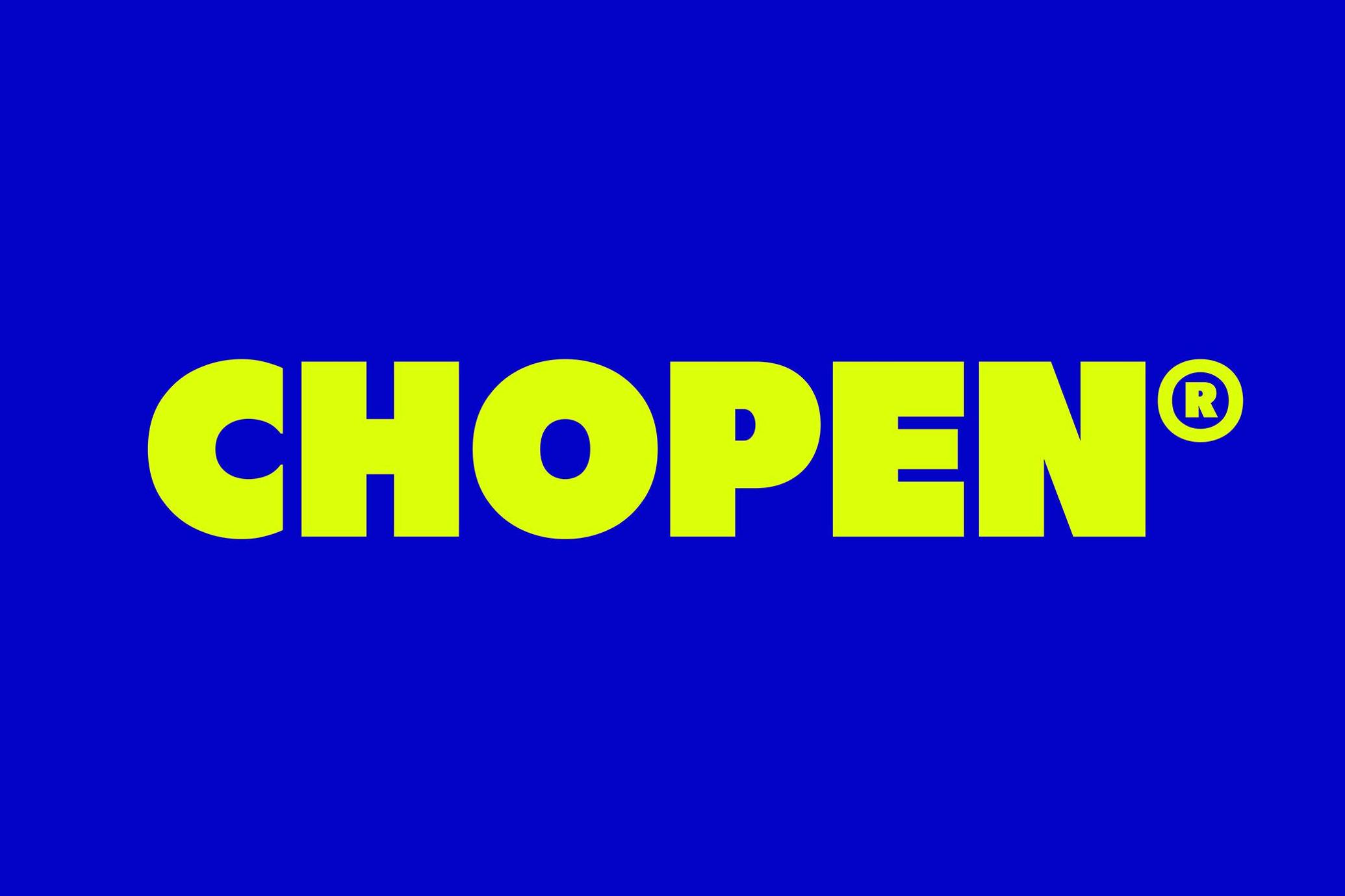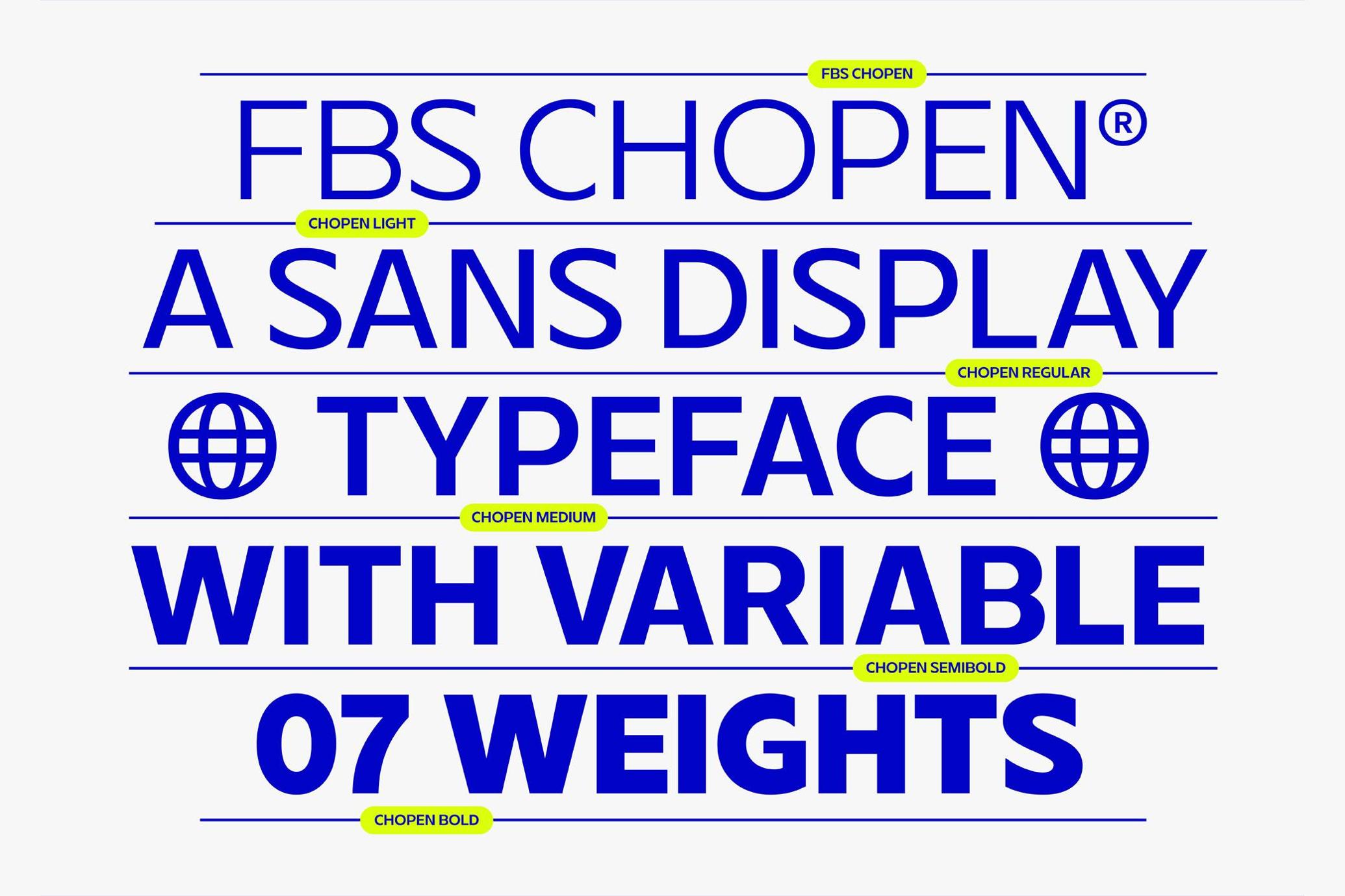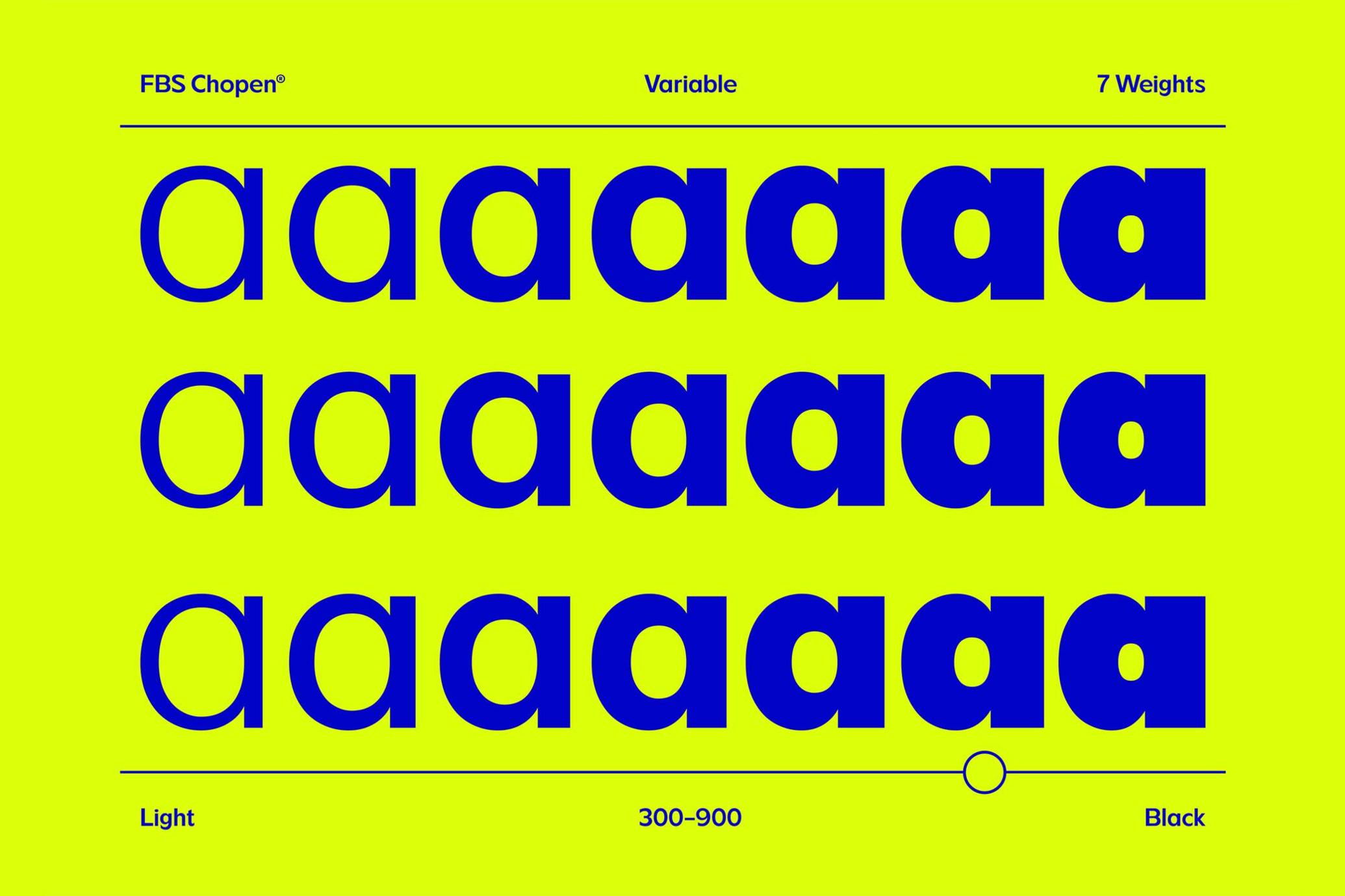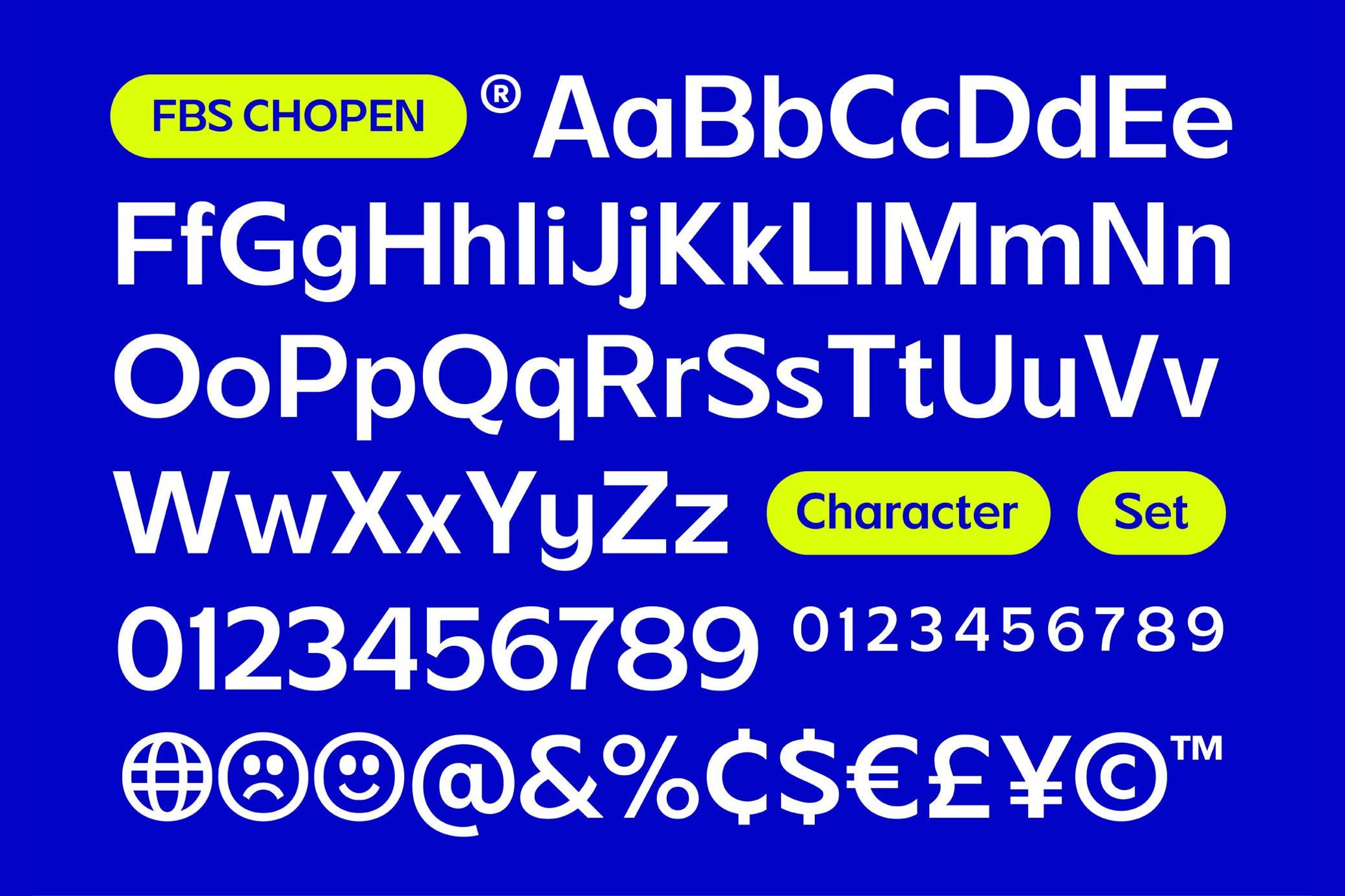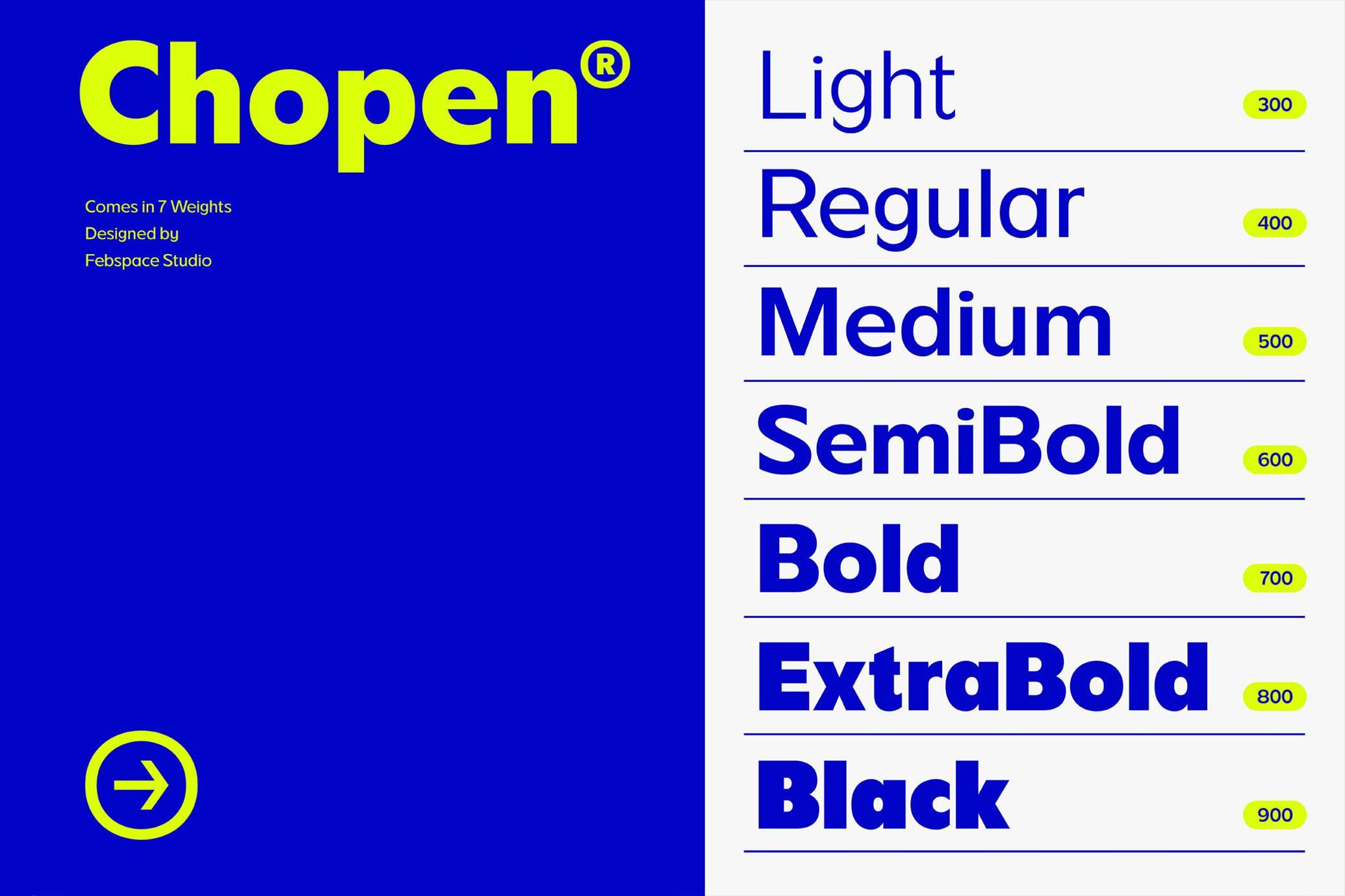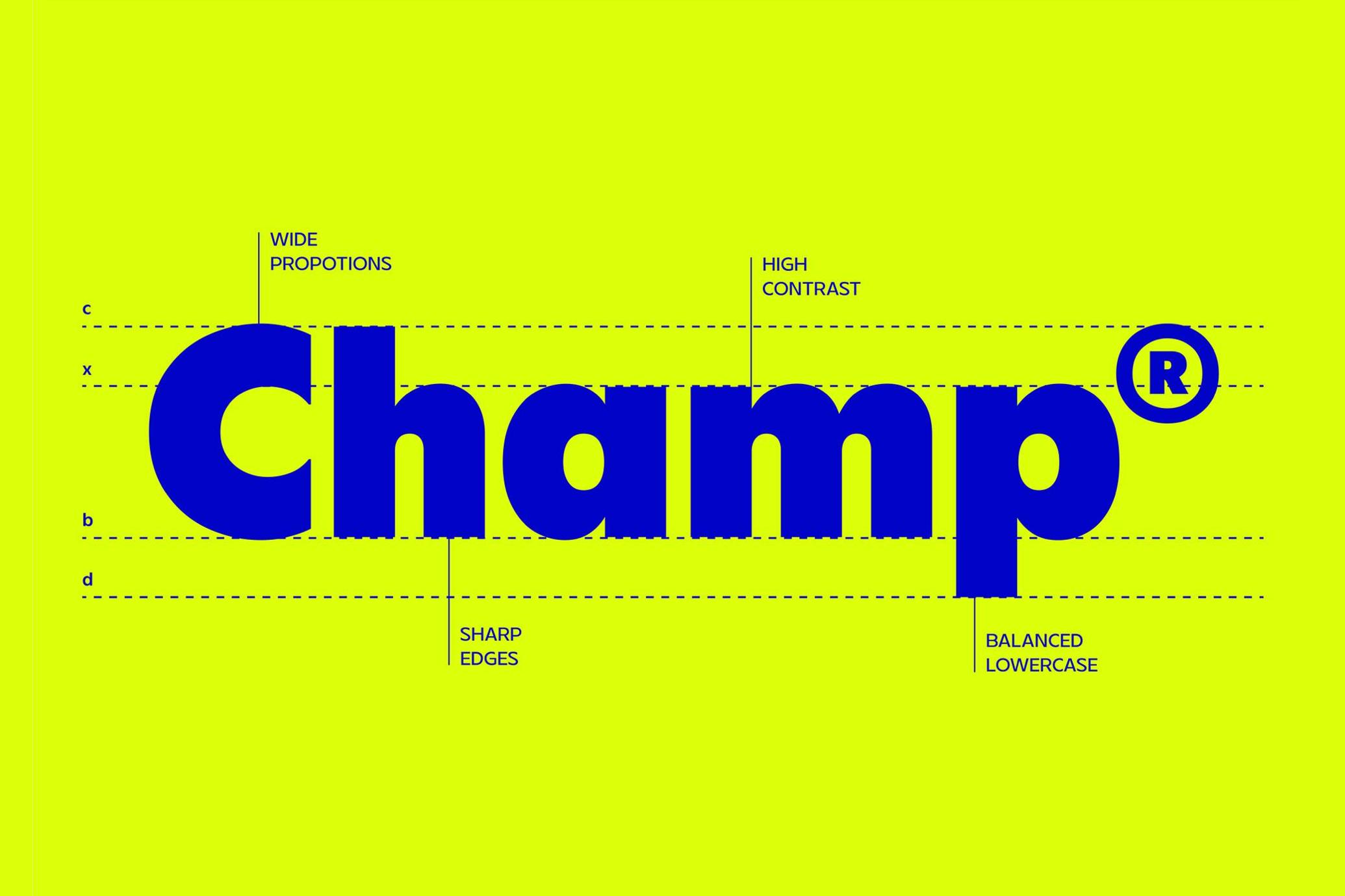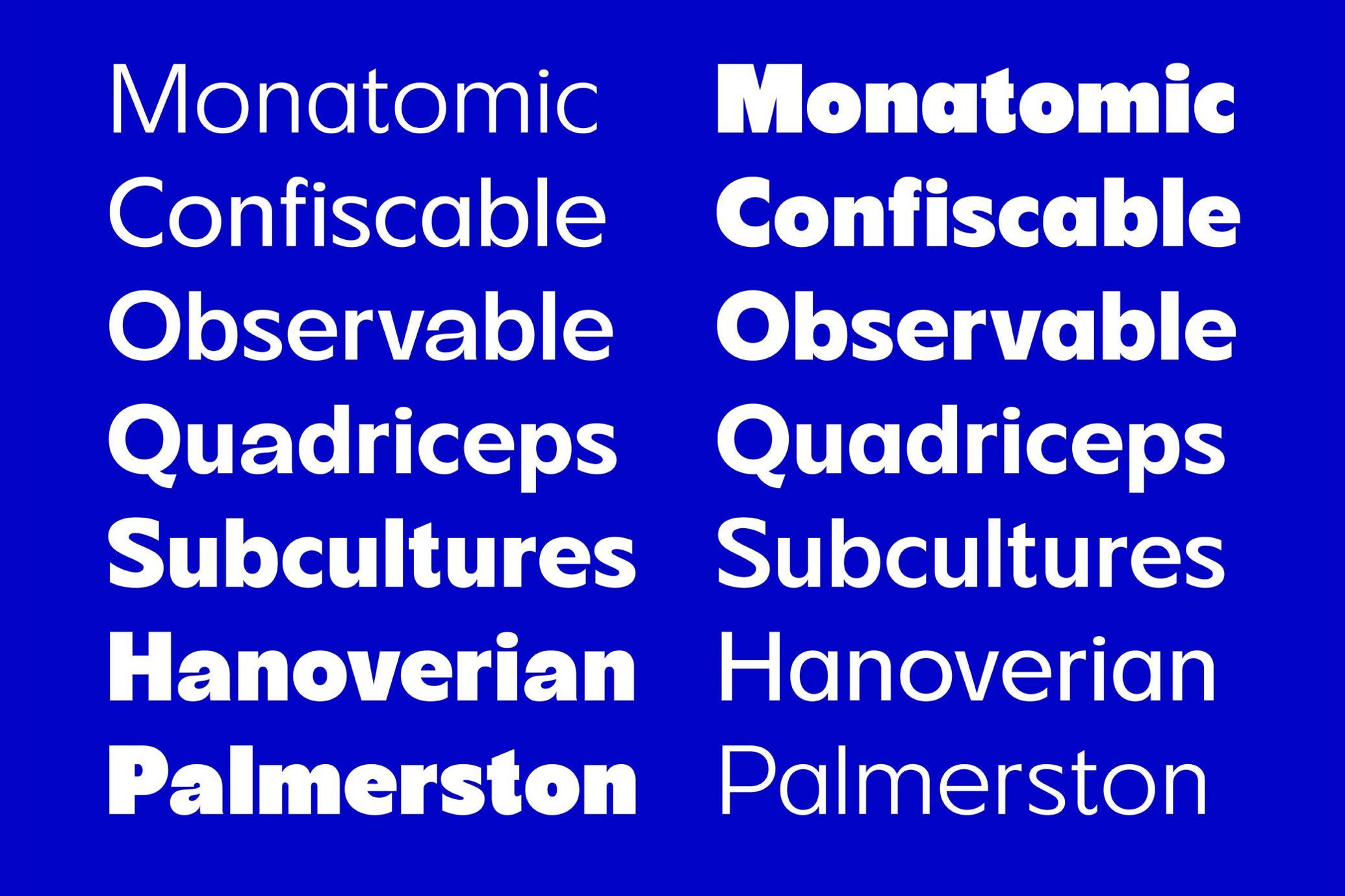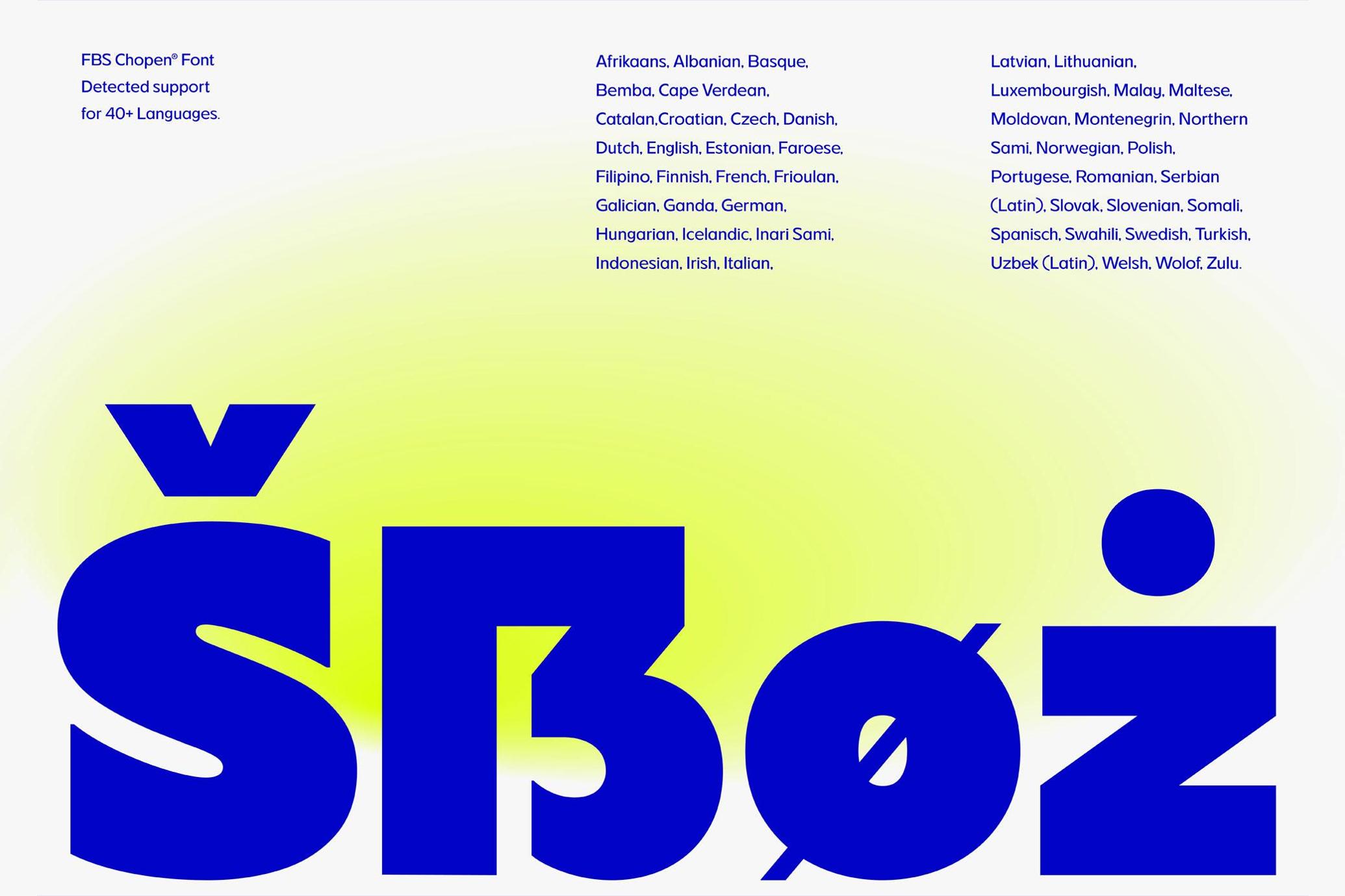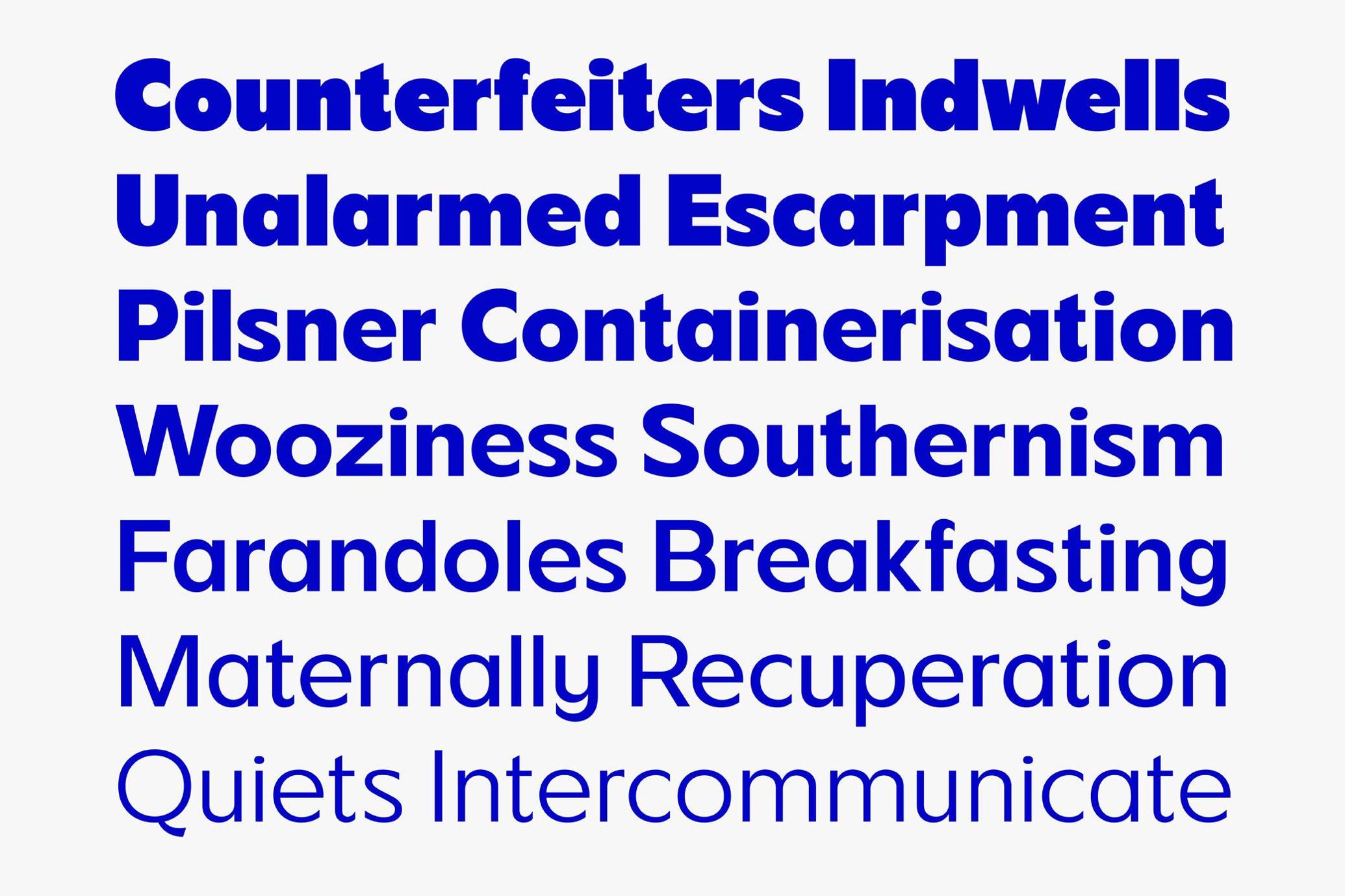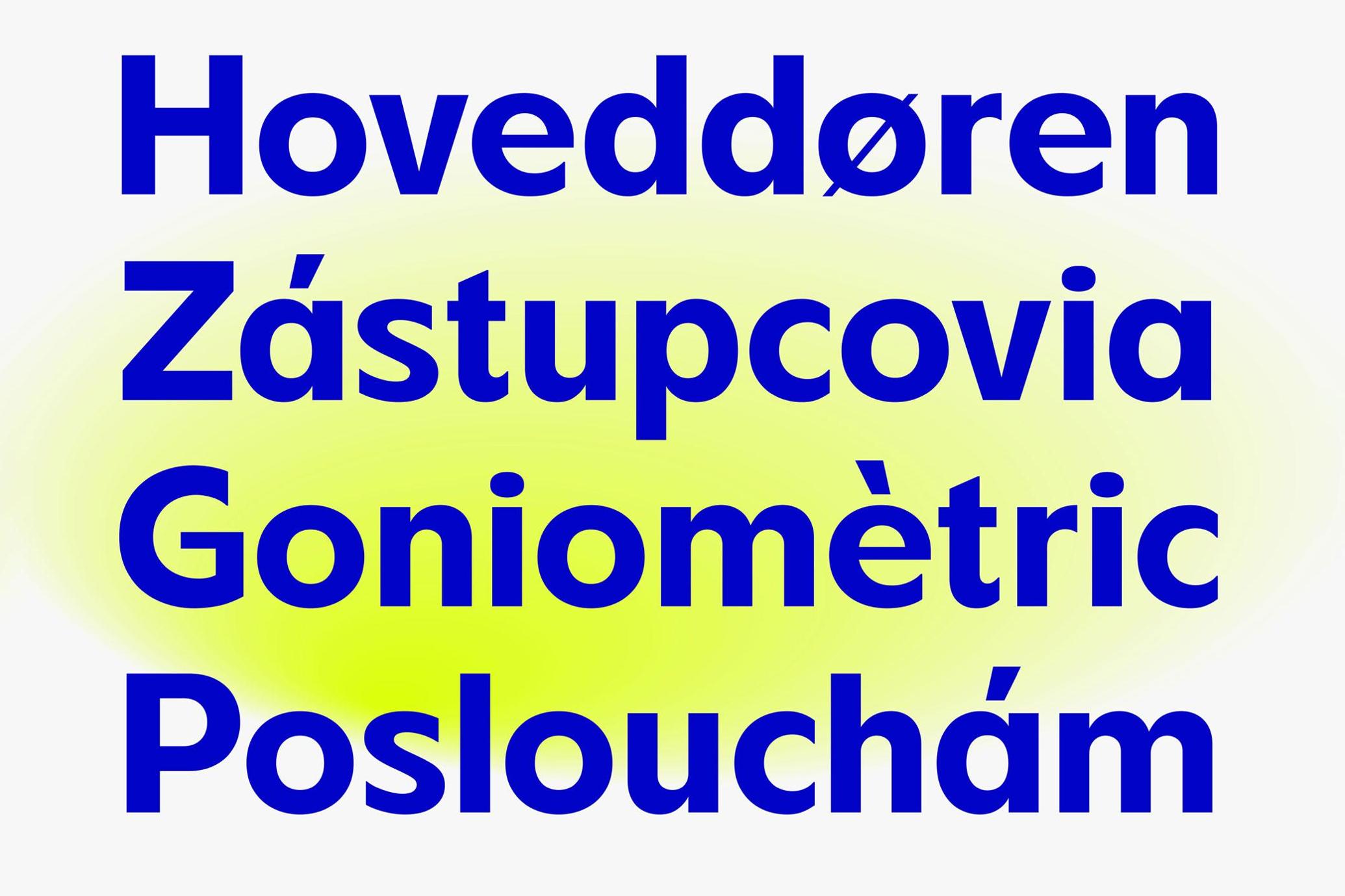
FBS Chopen Sans
FBS Chopen has absolutely nothing to do with the Polish composer, unless you consider writing code in Figma to be a form of romantic expression. This typeface doesn’t play piano; it plays perfectly with layouts, grids, and brand guides. It’s a geometric sans built for digital clarity and typographic precision, with a crisp retro edge that owes more to 1980s VHS packaging than classical music sheets. With seven weights from light to bold, FBS Chopen lets you produce anything from delicate UI labels to commanding headlines. The glyph set is packed — 431+ characters with multilingual support, OpenType features, and enough personality to hold its own in any branding, editorial, or interface design.